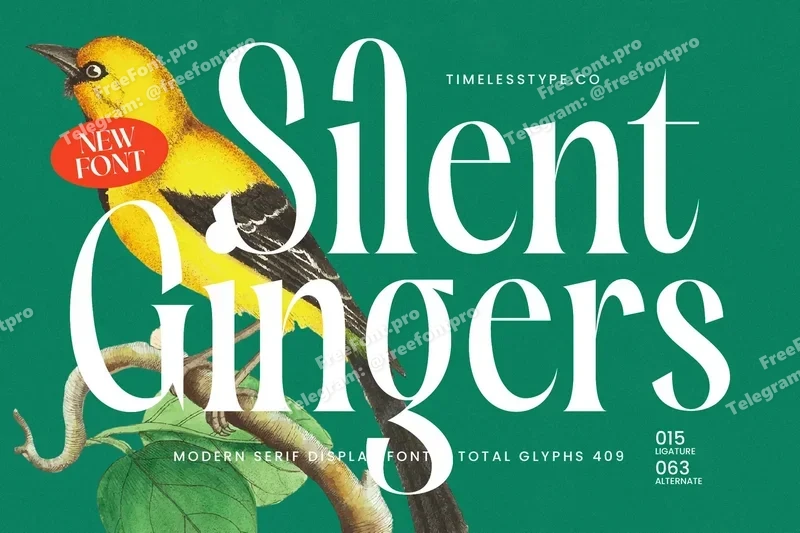
Silent Gingers – Modern Serif Display
Silent Gingers is a modern serif display font with tall proportions, elegant strokes, and refined alternates designed to create timeless and sophisticated typography. Featuring stylish ligatures and smooth curves, this typeface is perfect for logos, posters, invitations, packaging, branding, and editorial layouts. With its bold yet graceful design, Silent Gingers adds creativity and luxury to both digital and print projects, making every design stand out.